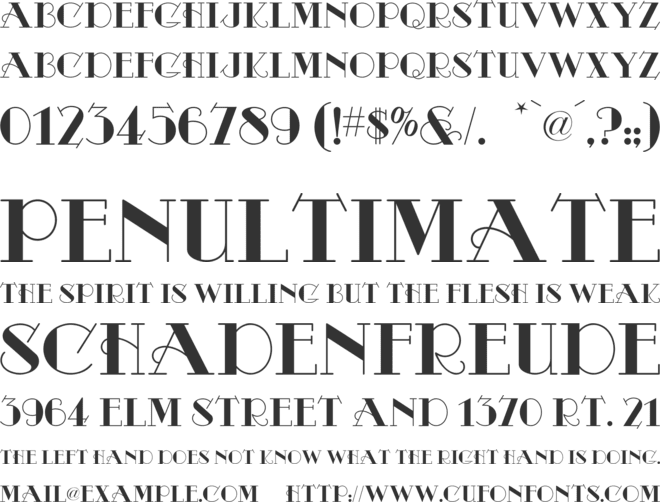
What I thought was another incomplete gem from the Dover clipart book called Art Deco Initials actually turned out to be the handiwork of berserker fontmeister Alphonse E. Tripp, which was originallt named Dignity Roman.The fontâs graceful, curvy charm put me in mind of a painting by the French Romatic painter Jean-Auguste-Dominique Ingres, which lends its name to this humble effort. The freeware version is caps-only; if youâd like the complete font, including all the bells and whistles that come with the Adobe character set, check out Day Tripper NF.